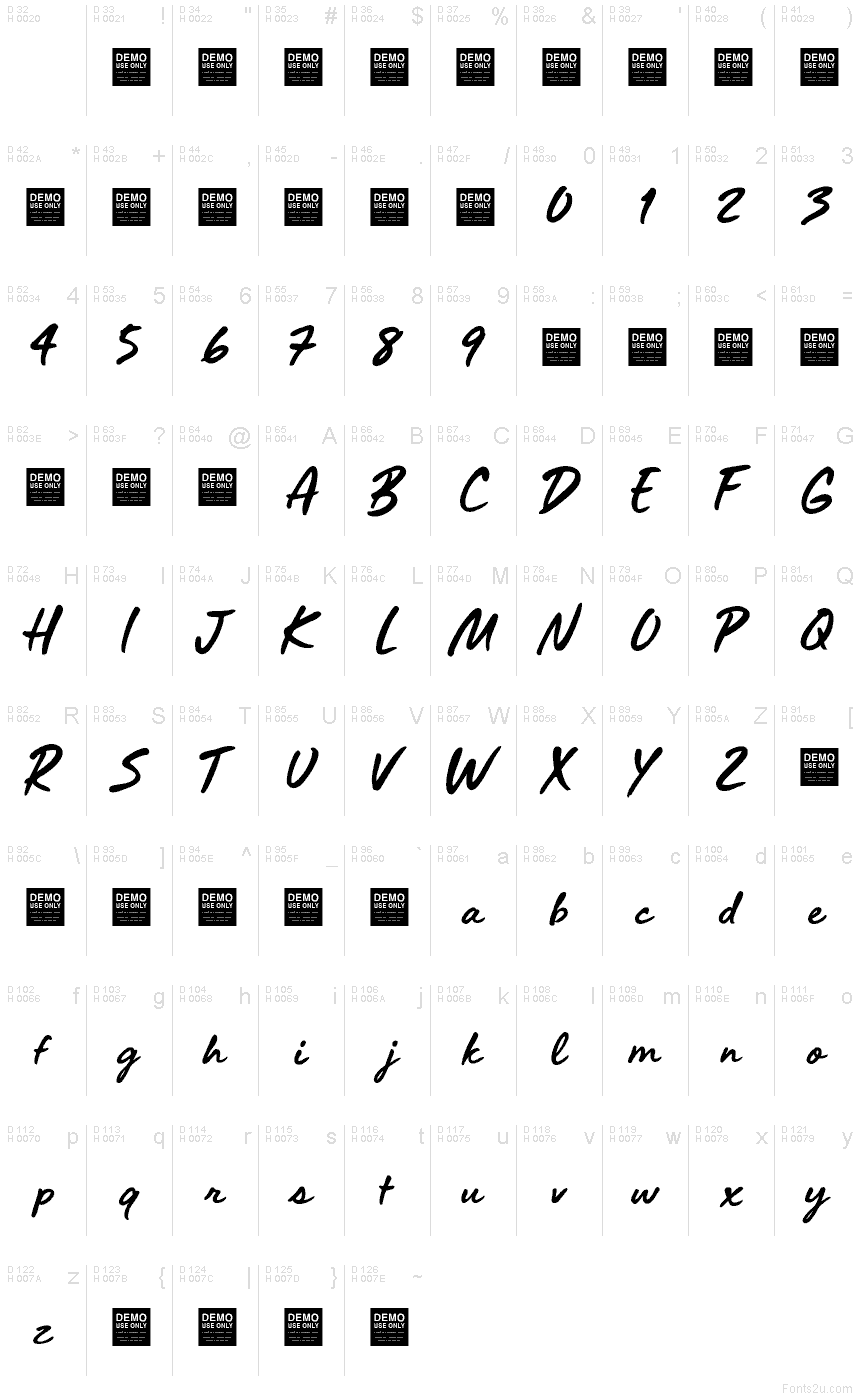
Stone Blue font by BLKBK Fonts embodies a playful and elegant brush style, characterized by the realistic and natural appearance expected from such styles. Its captivating letters show artistic care inspired by calligraphy.
Stone Blue